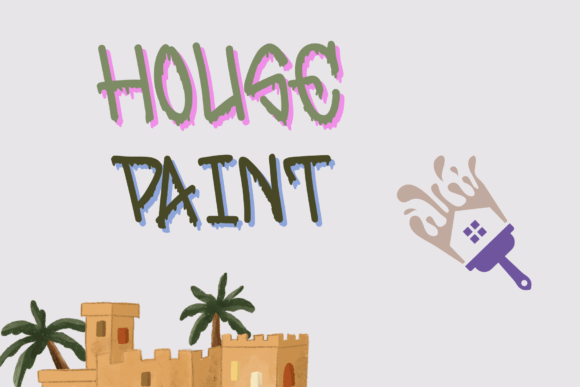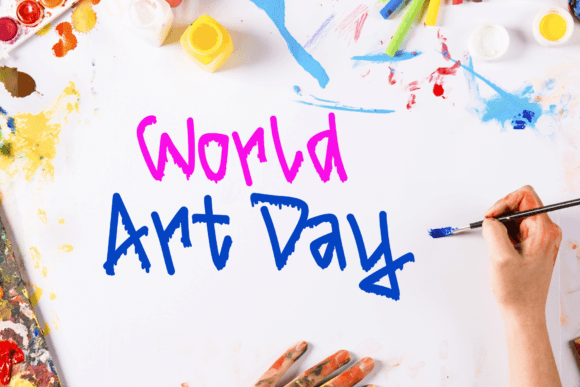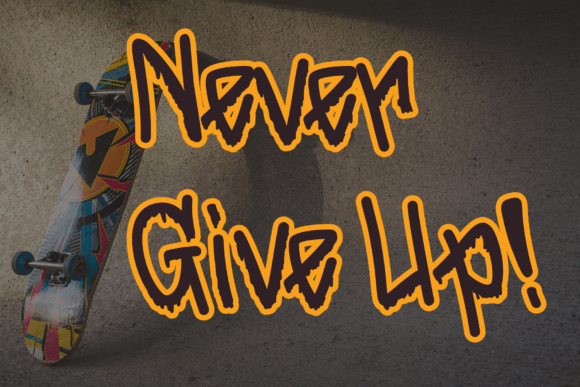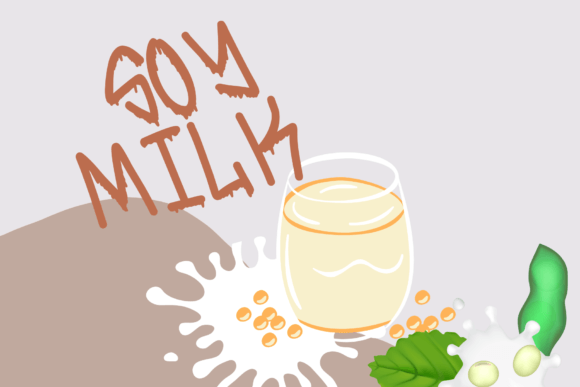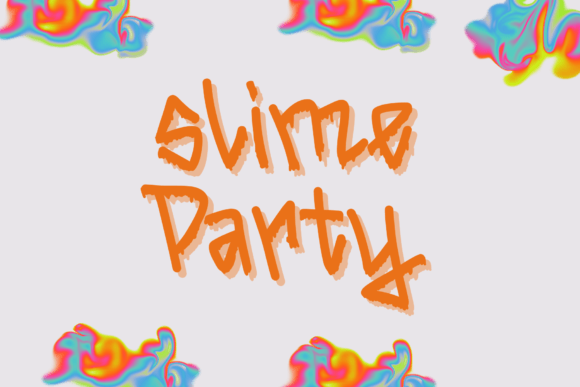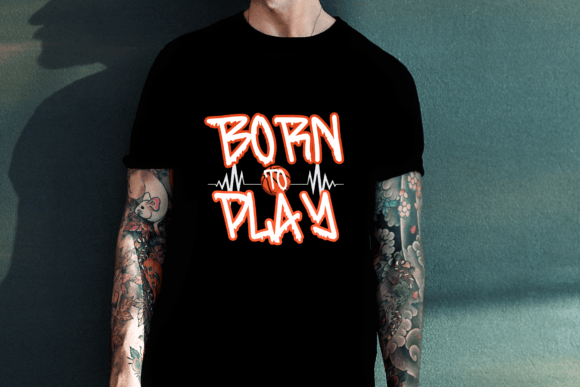
Dripping Slime Font: The Perfect Addition to Your Design Arsenal
Are you a designer or crafter looking for a font that can add a touch of fun and playfulness to your projects? Look no further than the Dripping Slime Font! This handwritten display font is perfect for creating lovely designs that exude a cute summery vibe and casual charm. In this article, we’ll dive into the features and benefits of the Dripping Slime Font, and explore the various ways you can use it to elevate your designs.
What is Dripping Slime Font?
Dripping Slime Font is a fun and quirky handwritten display font that is designed to add a touch of whimsy to your designs. Its unique and playful style makes it perfect for creating eye-catching headlines, titles, and captions. The font’s casual and relaxed vibe makes it ideal for designs that require a friendly and approachable tone.
Key Features of Dripping Slime Font
- Cute Summery Vibe: The Dripping Slime Font has a distinctly summery feel that makes it perfect for designs that require a lighthearted and carefree tone.
- Casual Charm: The font’s handwritten style gives it a charming and informal feel that is perfect for creating designs that require a personal touch.
- Versatile: The Dripping Slime Font can be used for a wide range of design projects, from t-shirts and stickers to tote bags and food menus.
- Easy to Read: Despite its playful style, the Dripping Slime Font is easy to read and understand, making it perfect for designs that require a clear and concise message.
Uses of Dripping Slime Font
The Dripping Slime Font is a versatile font that can be used for a wide range of design projects. Here are some ideas to get you started:
- T-Shirts: Create fun and playful t-shirt designs that are perfect for summer. The Dripping Slime Font is ideal for creating catchy slogans and phrases that will make your designs stand out.
- Stickers: Add a touch of whimsy to your stickers with the Dripping Slime Font. Its playful style makes it perfect for creating fun and eye-catching designs.
- Tote Bags: Create adorable tote bag designs that are perfect for summer. The Dripping Slime Font is ideal for creating cute and catchy phrases that will make your designs stand out.
- Candy Packaging: Add a touch of fun and playfulness to your candy packaging with the Dripping Slime Font. Its playful style makes it perfect for creating eye-catching designs that will appeal to kids and adults alike.
- Food Menus: Create fun and playful food menus that are perfect for summer. The Dripping Slime Font is ideal for creating catchy headlines and descriptions that will make your menu stand out.
Tips for Using Dripping Slime Font
Here are some tips for using the Dripping Slime Font effectively:
- Use it for Headlines: The Dripping Slime Font is perfect for creating eye-catching headlines that will grab attention.
- Pair it with Other Fonts: Experiment with pairing the Dripping Slime Font with other fonts to create a unique and interesting design.
- Use it for Branding: The Dripping Slime Font is perfect for creating fun and playful branding designs that will appeal to kids and adults alike.
- Experiment with Colors: The Dripping Slime Font looks great in a variety of colors, so don’t be afraid to experiment and find the perfect color scheme for your design.
The Dripping Slime Font is a fun and playful font that is perfect for designers and crafters who want to add a touch of whimsy to their designs. Its cute summery vibe and casual charm make it ideal for creating lovely designs that will appeal to kids and adults alike. With its versatility and ease of use, the Dripping Slime Font is a great addition to any design arsenal.